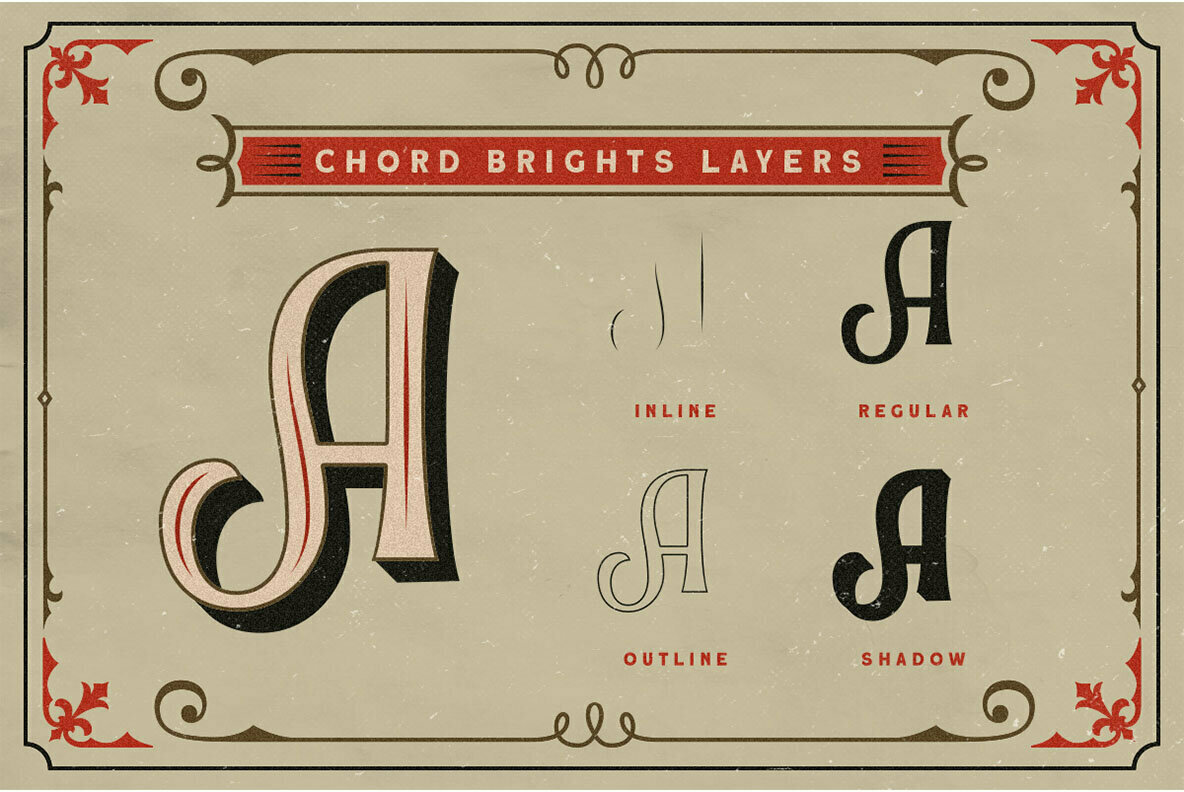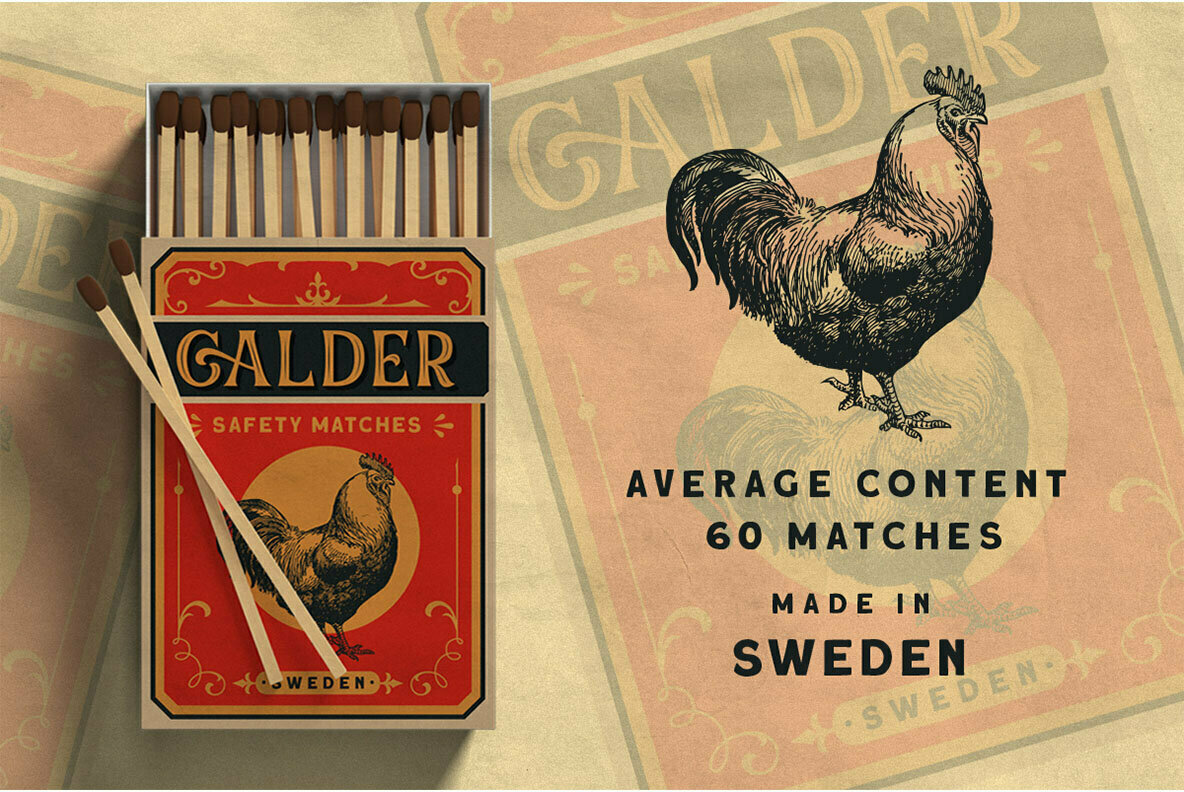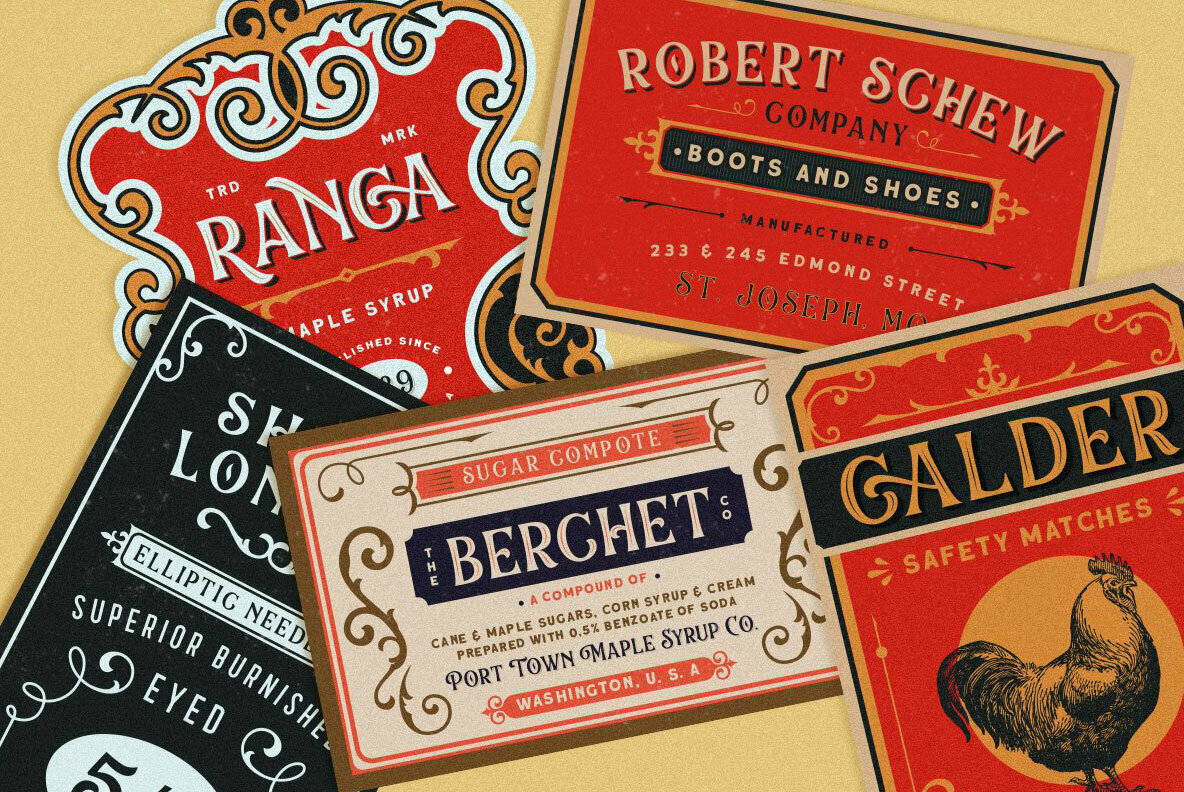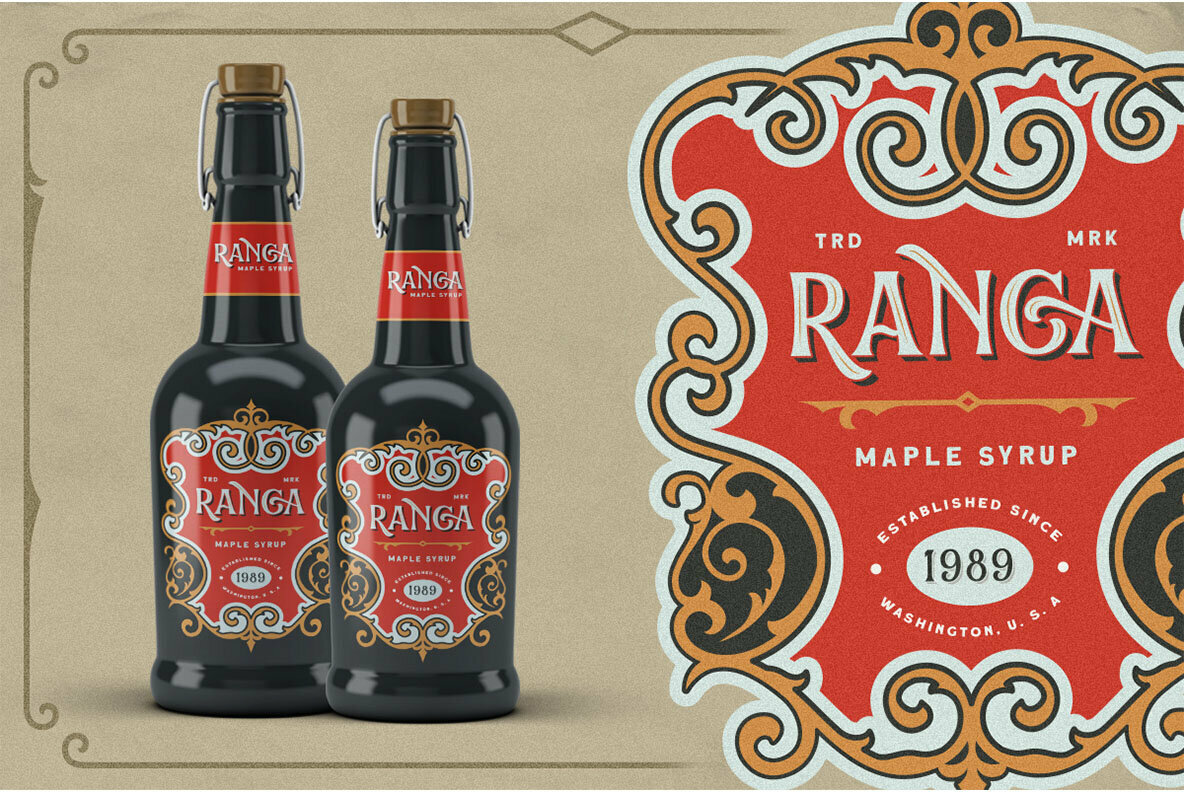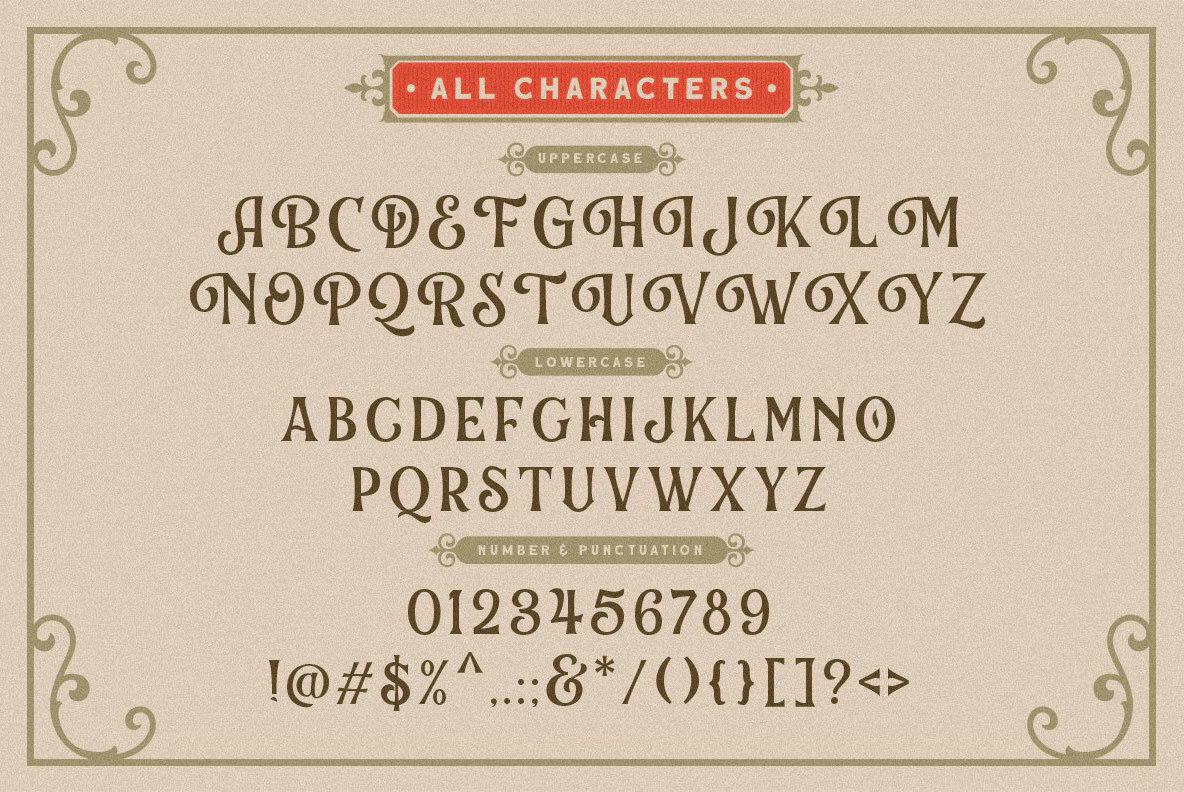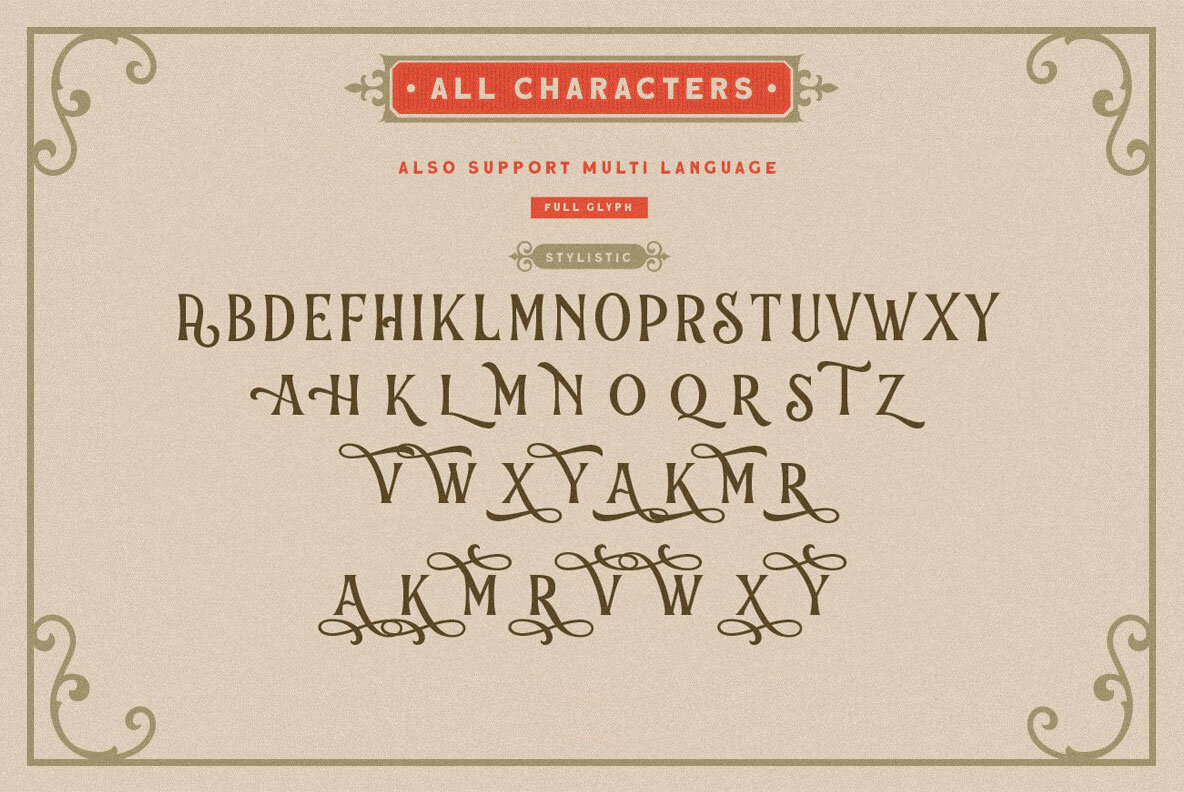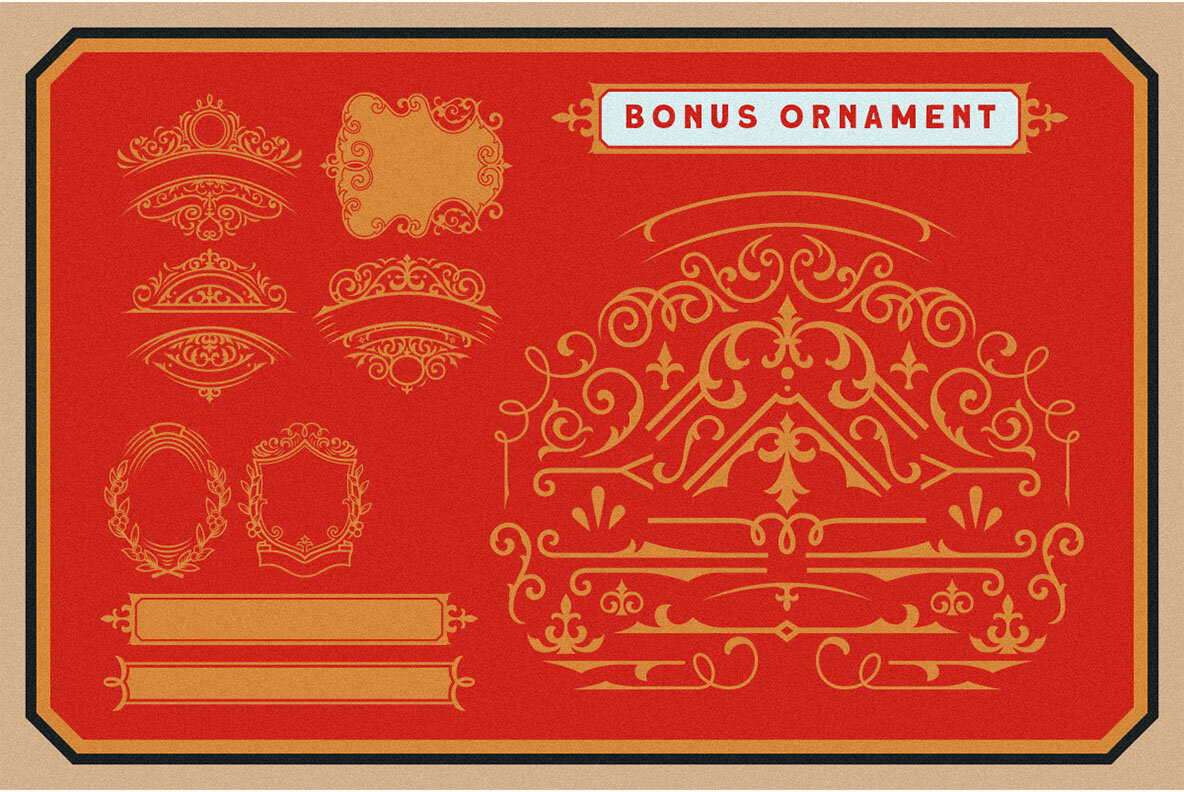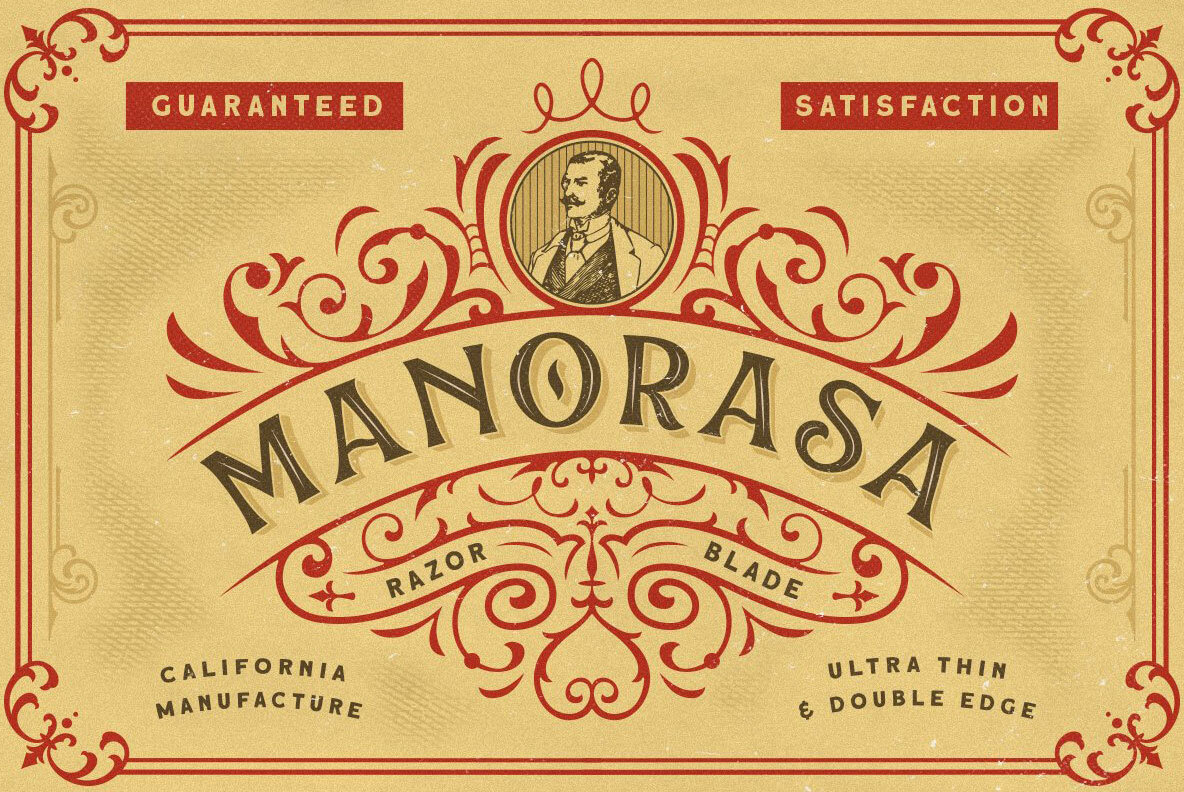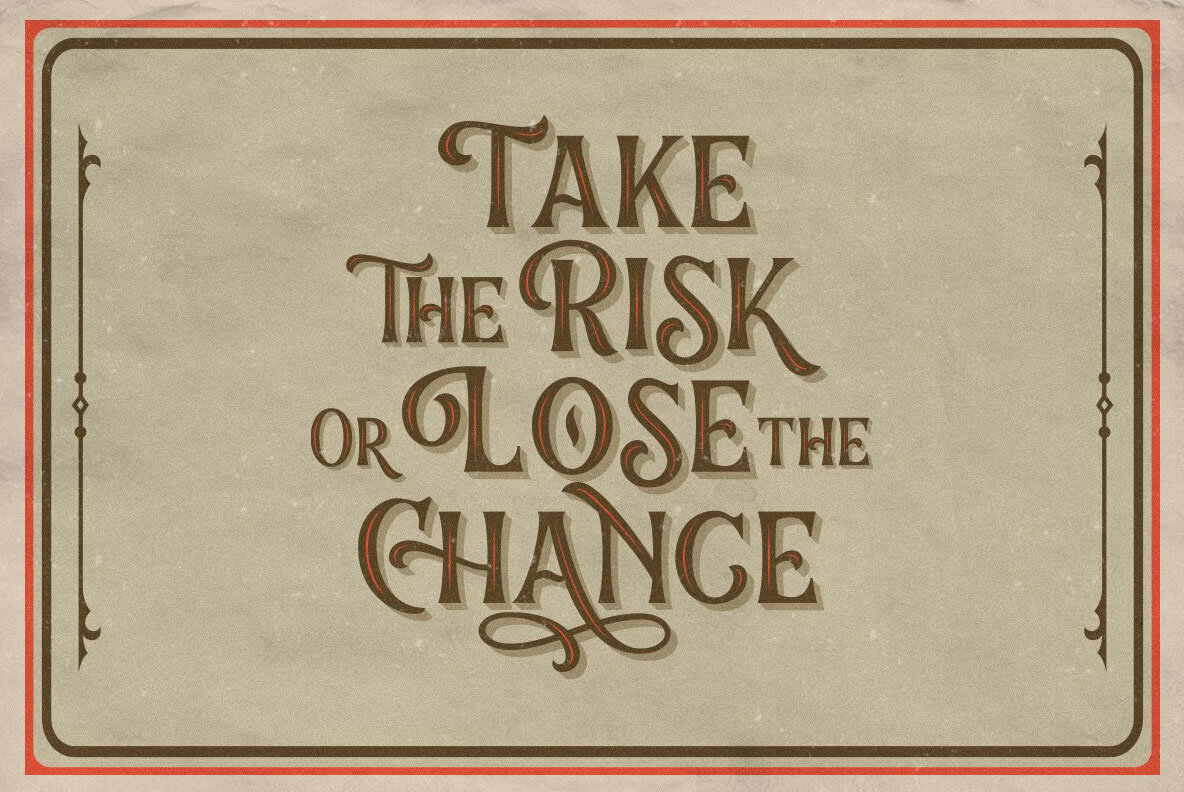
Chord Brights Font
Chord Brights Regular
Chord Brights Extrude
Chord Brights Inline
Chord Brights Outline
Embrace a timeless aesthetic with Chord Brights, a distinctive layered typeface that brings a nostalgic touch to any design project. This font features four unique layers—inline, regular, outline, and shadow—allowing for creative depth and versatility. Perfect for projects with a vintage or retro theme, Chord Brights captures the essence of yesteryear effortlessly. The included ornament bonus offers additional design flexibility, easily applied with a simple drag and drop.Chord Brights: A Nostalgic Layered Typeface